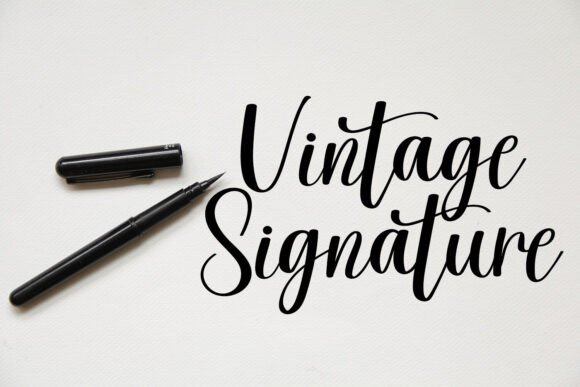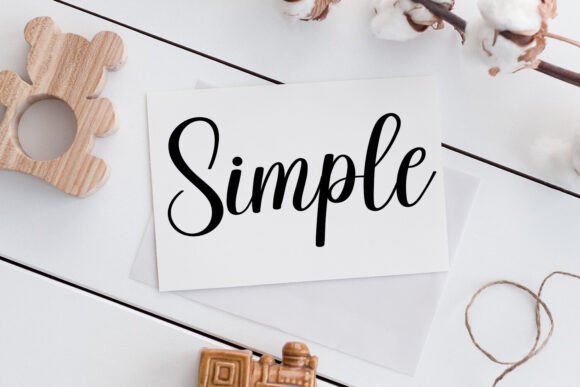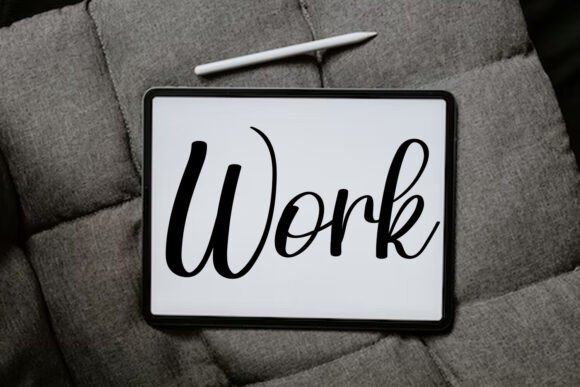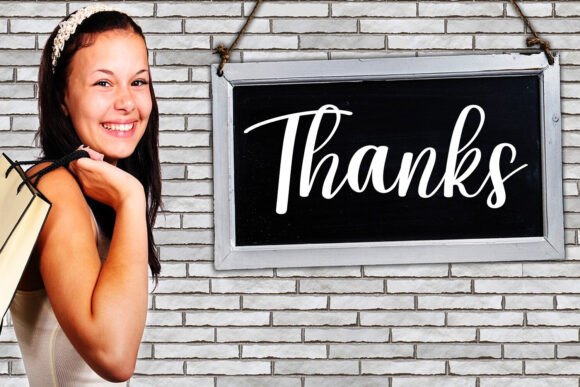
Where Creativity Meets Elegance: The Boho Font
Have you ever stared at a blank canvas, waiting for that spark of inspiration to strike? For many designers, this moment is what drives us to create something truly special. And that’s exactly what the Boho Font is designed to do – spark a sense of creativity and elegance in your next design project.
The Boho Font is an exquisitely crafted typeface that radiates a fresh, beautiful ambience. Its versatility makes it perfect for a wide range of applications, from YouTube banners to wedding invitations. Whether you’re looking to add a touch of romance or sophistication to your designs, the Boho Font is the perfect tool for the job. Its simplicity and unique charm make it stand out in a crowded world of typefaces, making it a valuable addition to any designer’s toolkit.
- Unique Characteristics: Boho Font features a distinctive, hand-drawn aesthetic with intricate details and organic lines, giving it a bohemian flair.
Boho Font Review
I’ve been playing around with the Boho Font, and I have to say it’s a beautiful addition to any design project. ✨ The font’s unique blend of bohemian and vintage styles gives it a laid-back, eclectic feel that’s perfect for projects that need a bit of edge.
One of the things I love about the Boho Font is its versatility. ✨ It works well in both headings and body text, and its subtle texture adds depth to any design. I’ve also been impressed with the font’s consistency across different sizes and styles.
While the Boho Font is a great choice for many projects, there are a few limitations to consider: ⚠️ It may not be the best choice for projects that require a more modern or sleek look. Additionally, the font’s texture can sometimes make it difficult to read in smaller sizes.
Overall, I’m a big fan of the Boho Font. It’s a great choice for projects that need a bit of personality and style. With its unique blend of bohemian and vintage elements, it’s sure to add a touch of whimsy to any design.
- Unique blend of bohemian and vintage styles
- Perfect for projects that need a bit of edge
- Works well in both headings and body text
- Subtle texture adds depth to any design
- Consistent across different sizes and styles
For best results, pair the Boho font with bold, bright colors and eclectic graphics.
For best results, use the Boho font in combination with layered graphics and textures.
For best results, pair the Boho font with colorful backgrounds and creative graphics.
The Boho font is perfect for:
- Travel and adventure branding
- Artistic and creative projects